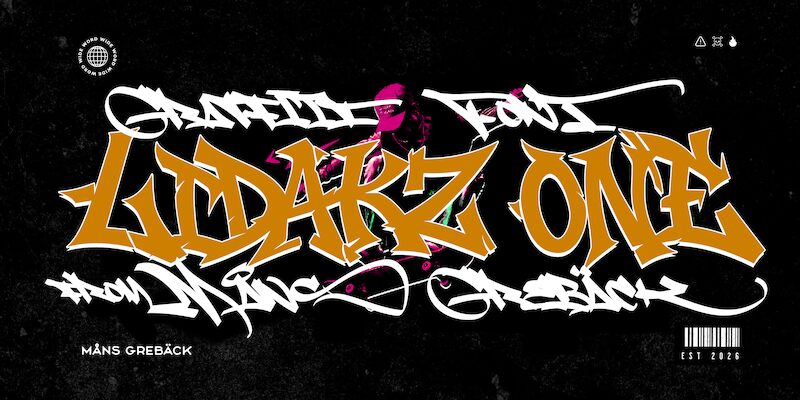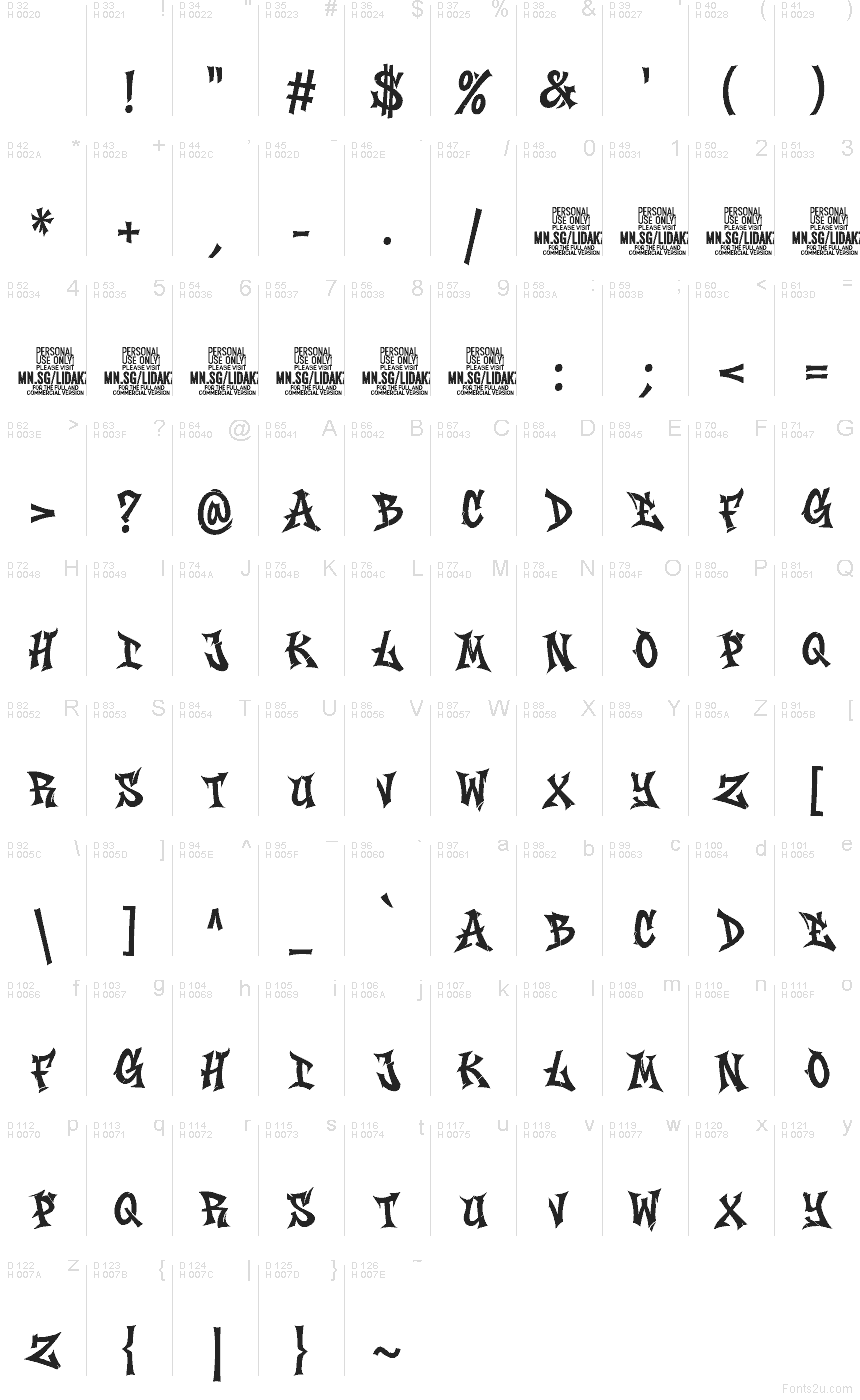
Lidakz One PERSONAL USE Regular
Lidakz One font by Mans Greback is a free graffiti font that hits like a fresh tag on a brick wall. Its jagged silhouettes, knife-sharp corners, and uneven rhythm give every word a restless, spray-can energy while still staying easy to read. The letters feel hacked out and thrown down in one go, capturing that raw, street-level attitude without turning into chaos.
Using Lidakz One, you can push bold headlines on gig posters, album covers, skate or streetwear branding, club flyers, video thumbnails, and game titles that need bite. This free font thrives at large sizes where its spiky shapes can really shout; back it up with a plain, neutral sans serif for body copy to keep your layouts balanced and legible.